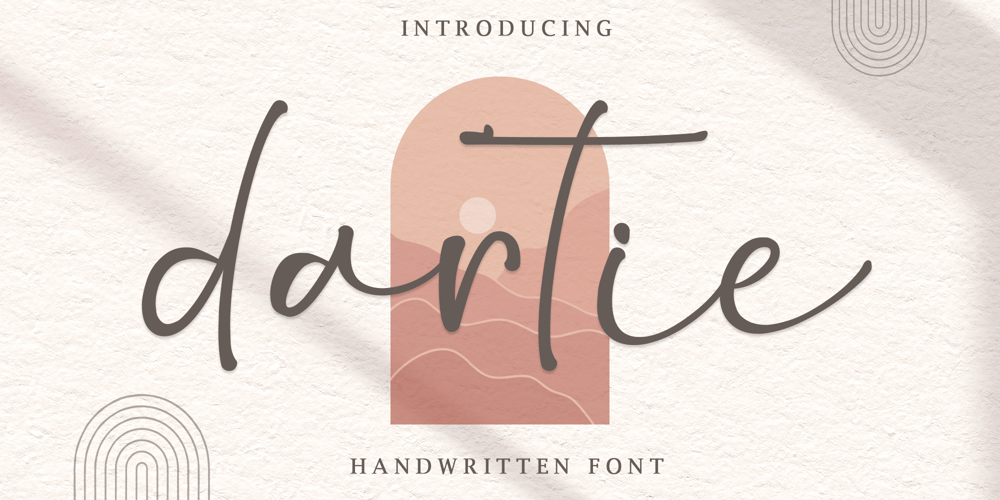
Dartie
Dartie font
Dartie Font Family was designed by Alif Ryan Zulfikar and published by Sakha Design. Dartie contains 2 styles and family package options. Dartie is a lovely script font featuring charming, playful characters that seem to dance along the baseline. Add this font to your most creative ideas, and notice how it makes them stand out!